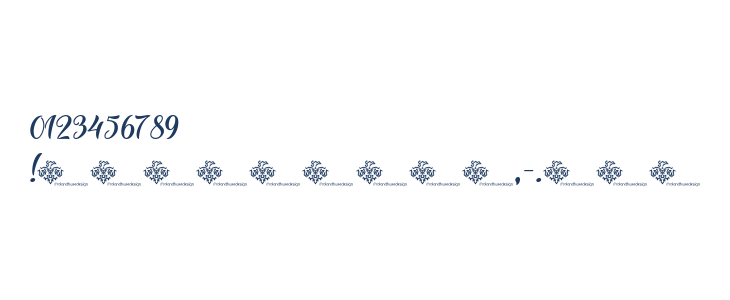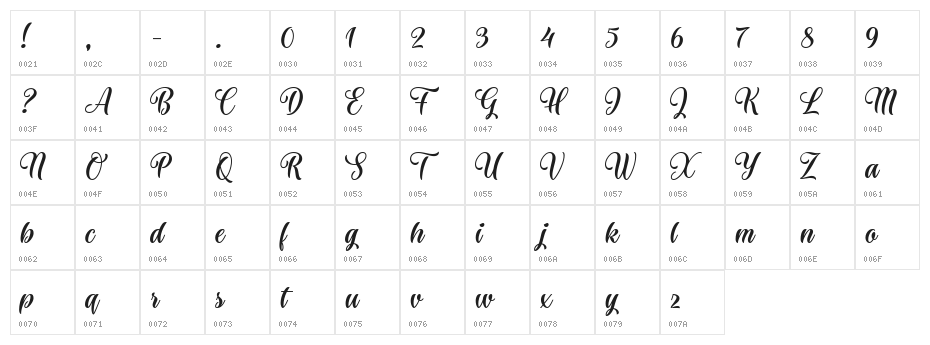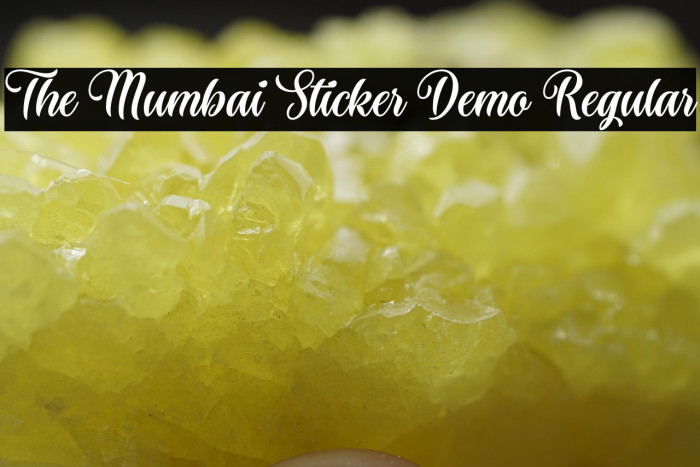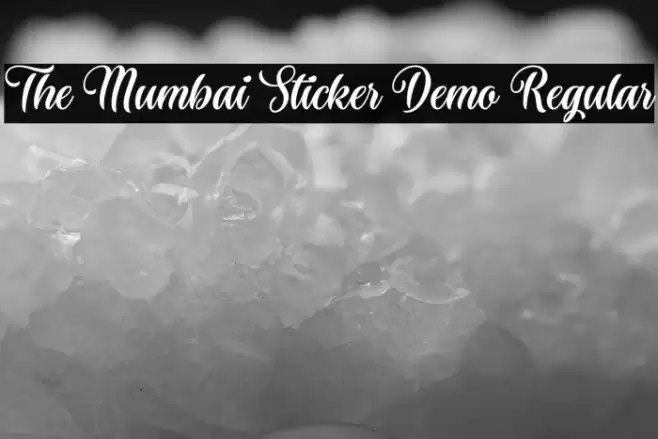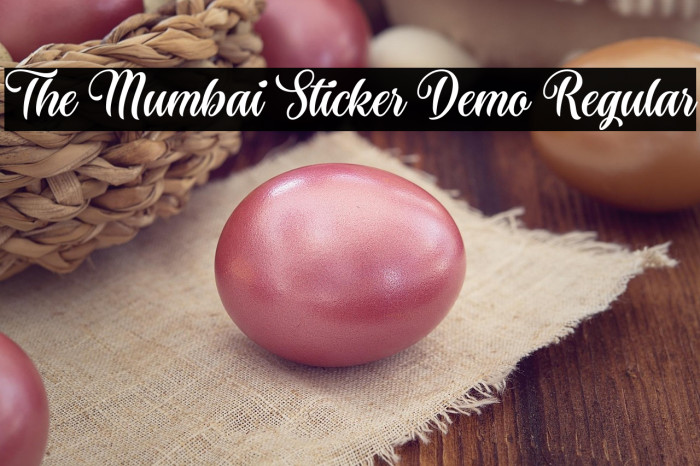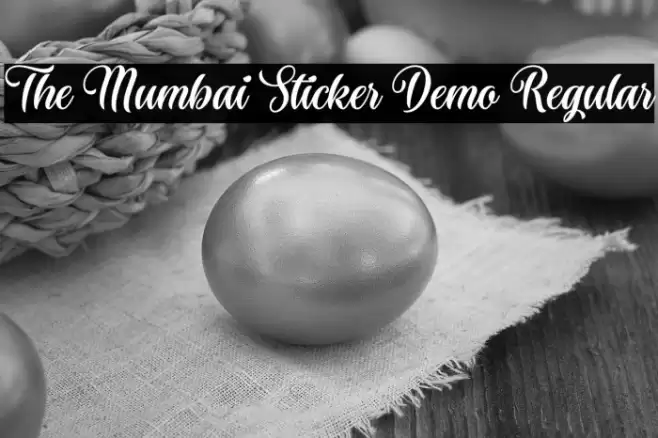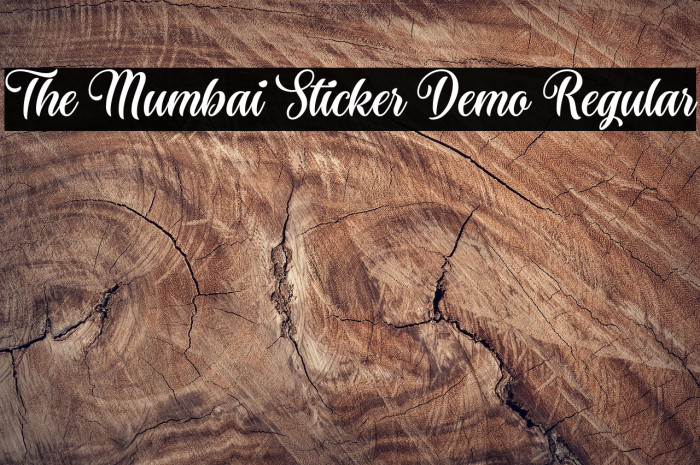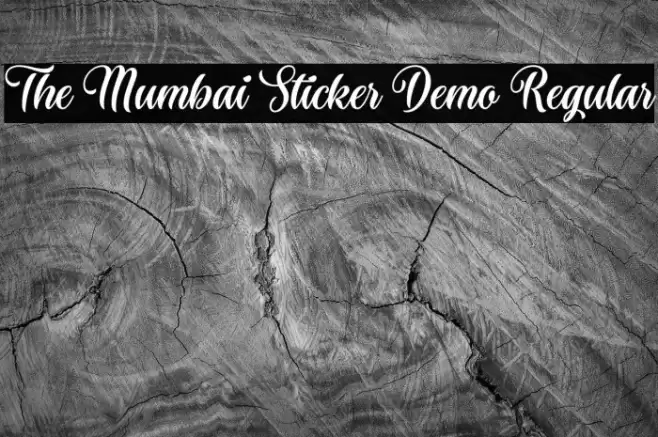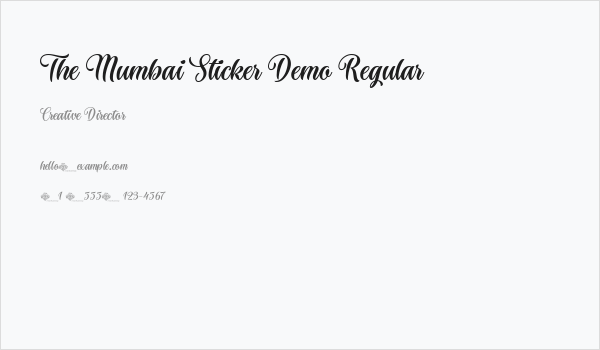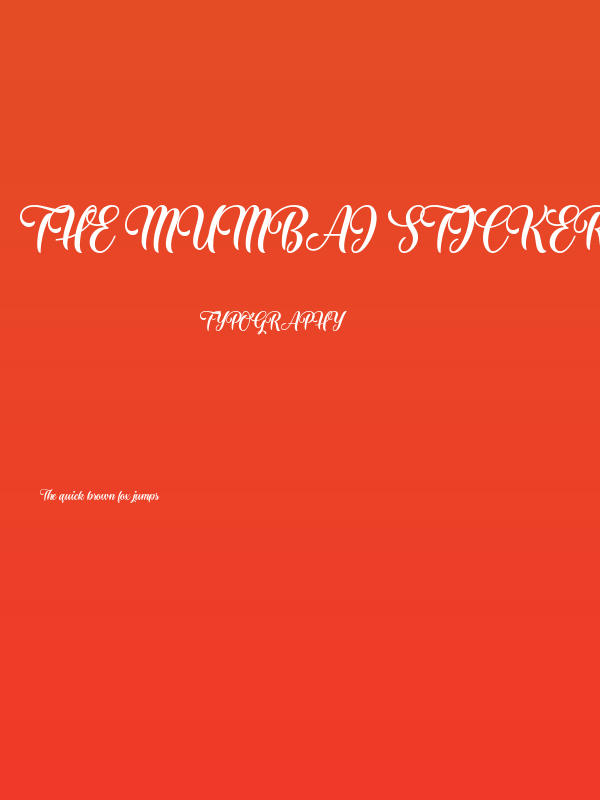
The Mumbai Sticker Demo Regular Font
The Mumbai Sticker Demo Regular Description
This font exhibits a bold and expressive style with a cursive flair, characterized by its flowing, interconnected letters. The uppercase letters are particularly ornate, featuring elegant swashes and loops that add a sense of movement and sophistication. The lowercase letters maintain a consistent style, with smooth curves and a slightly playful touch. The numerals are distinct and maintain the decorative theme, ensuring readability while adding a unique aesthetic. The special characters complement the overall design, making it suitable for creative and artistic projects.